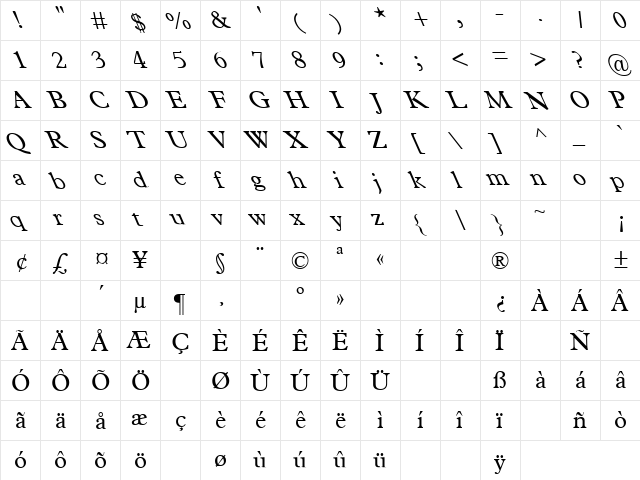
Back In The Saddle 1 Regular
Design Context for Back In The Saddle 1 Typeface
Back In The Saddle 1 takes a measured approach to typography — its balanced proportions and neutral character make it a reliable workhorse for both digital and print work.